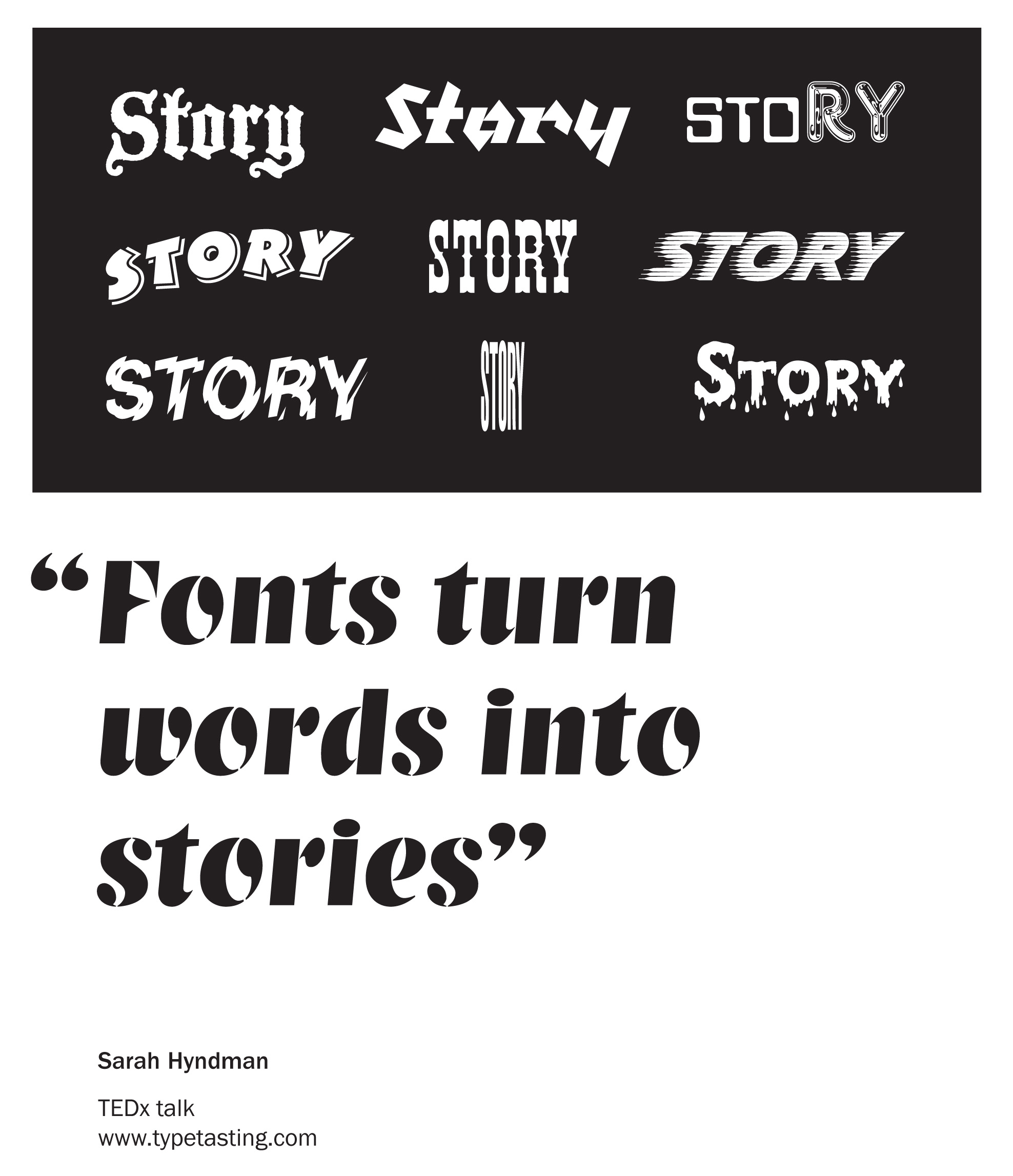
I’m looking forward to bringing a glimpse of my typography lab experiments to It’s Nice That’s Nicer Tuesdays tomorrow evening. Come along ready to join in!
Sunday Brunch
I was delighted to be invited on to Channel 4’s Sunday Brunch yesterday (Sunday 7th February) to talk about my new book Why Fonts Matter and play some classic Type Tasting games. It was a fast-paced and fun 9 minutes. The aim had been to show that typography can be fun and accessible; that it doesn’t always have to be an intellectual discussion, and from the feedback on Twitter we achieved this. I demonstrated how type tells us how expensive or calorific a product might be. I talked about Simon choosing a typeface for his restaurant menus to convey that the chef is skilful (and discovered that he has an aversion to italics). We had a quick look at the Type Dating Game, before Tim and Simon both chose a typeface card and read out their own personality analysis. We ended with font sniffing: pairing the smells to the shapes of typefaces, and I explained why most people give very similar answers.
The Type Tasting props posing nicely with the Channel 4 logo in the background.
Talking fonts live on BBC Radio 4
Yesterday I was invited to be one of the guests on BBC Radio 4’s Saturday Live to talk about how we respond to typefaces. I took along some of the games that had gone down so well at the Pop-up Type Tasting at the V&A for the London Design Festival the previous weekend. Above is actor Sophie Thompson playing the ‘Feel Me’ game matching what she can feel to one of the fonts shown, if you came along to the event last weekend you know exactly which font she’s feeling from the expression on her face!
It was such an interesting programme to be on. Sophie is delightful and a pleasure to listen to, and I was excited to meet Peter Bleksley who is one of the hunters on ‘Hunted’ with the most amazing voice. It seems that we would all love the challenge of being on the next series and going on the run in an attempt to evade capture for 28 days. Third guest Trevor Lyttleton founded a charity which works with the elderly and we had a great chat afterwards about the power of typefaces on packaging to trigger nostalgia and bring back memories.
Typefaces from the TEDx talk
Typefaces from Sarah Hyndman‘s TEDx talk ‘Wake Up and Smell the Fonts’ (in order of appearance)
VAG rounded, Clarendon bold condensed, Tekton, Trajan, Impact, Engravers Gothic, Agincourt, Didot, Aesthetique, Times New Roman, Klute.
Star Wars in 15 fonts: Blackmoor, Orbit, Klute, Pneuma, Data Seventy, Chromium One, Bertram, Buffalo Gal, Slipstream, Shatter, Black Boton, Helvetica bold compressed, Forest Shaded, Klute, Creepy, F2FShpeetz, BangCom.
“Sarah Hyndman’s talk was a game changer”
Sarah Hyndman’s talk was a game-changer. In a tech-focused city, such as SF, designers are often asked to produce analytics for aesthetics they create. Clients will say, “You chose to use this typeface but what’s the data to back up the decision? Does type matter?” Sarah believes, and is proving quantitatively, that typeface choices do indeed matter and are largely influential in consumer behavior. She explores a lot of synesthesic topics in her research and workshops — presenting visual content to evoke an auditory or gustatory response. She builds on the work of cognitive neuroscientists and brings their questions and insights into a real-world lab of designer attendees.
‘Tasting Type’ at TYPO, San Francisco
TALK: TASTING TYPE, SARAH HYNDMAN
TYPO San Francisco
Defocusing, or taking a step back from her project-by-project gaze as a commercial graphic designer, prompted Sarah to question and reassess her future in the industry. As a result she set off on a completely new journey of typographic exploration, self-initiated projects and research which gave her career a new focus and a sense of fun.
Come and discover what a Type Tasting is and hear about some of the surprises and discoveries Sarah has made along the way. Her Font Census enables her to profile the personalities of fonts, and to ask whether designers and non-designers view typefaces in the same way? She starts conversations about the experience of typography by baking edible type and she regularly invites people to her East London studio to sniff fonts. Sarah will show how type evokes all of our senses, talk about working with scientists at Oxford University to research how type can alter our experiences, and give you a glimpse into why she sees the world as a typographic wonderland.